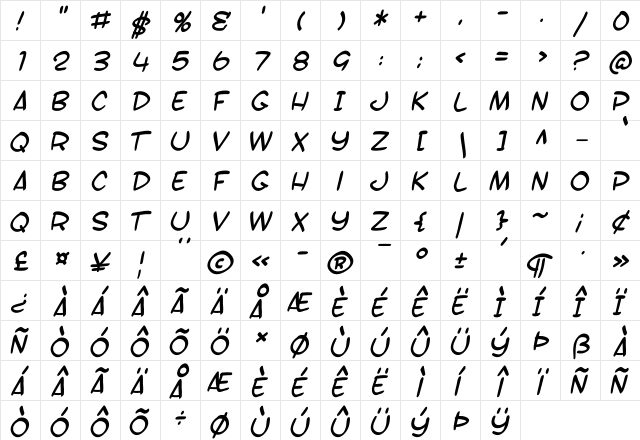
SF Toontime B Italic
Design Context for SF Toontime B Typeface
SF Toontime B is a composed and adaptable typeface that performs quietly and consistently across a wide range of design contexts. The dynamic lean of this cut emphasises speed and emphasis in any layout.
Pro Tip: Try SF Toontime B for annotation and caption copy alongside an upright companion — the contrast in angle creates a dynamic but ordered typographic system.